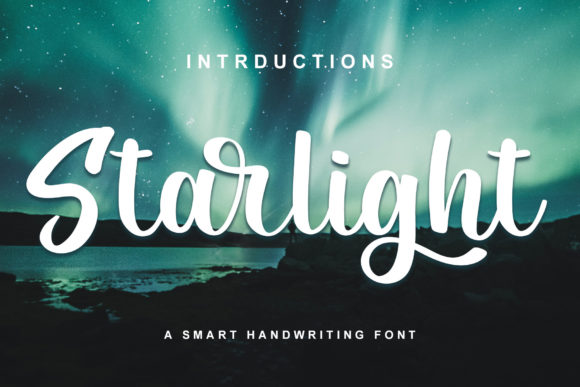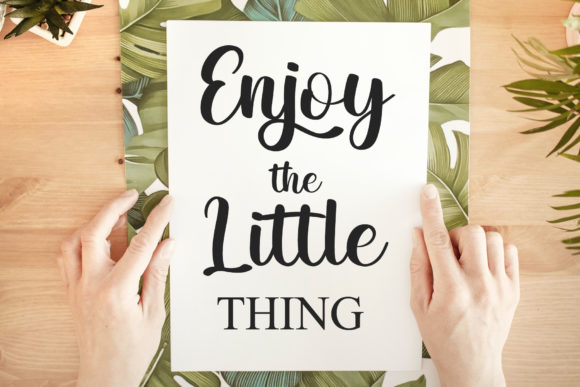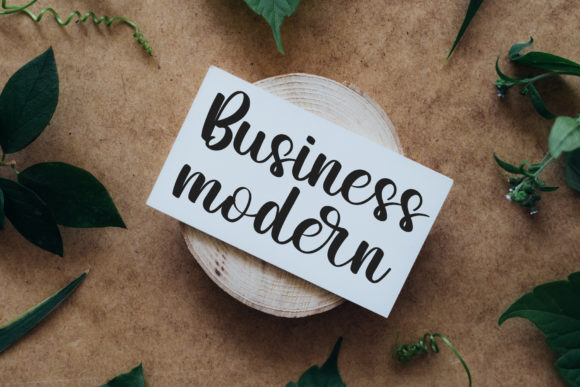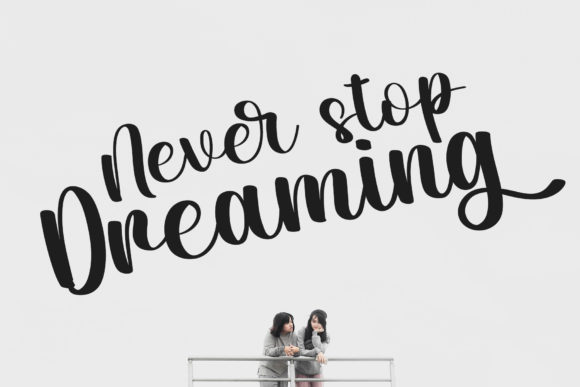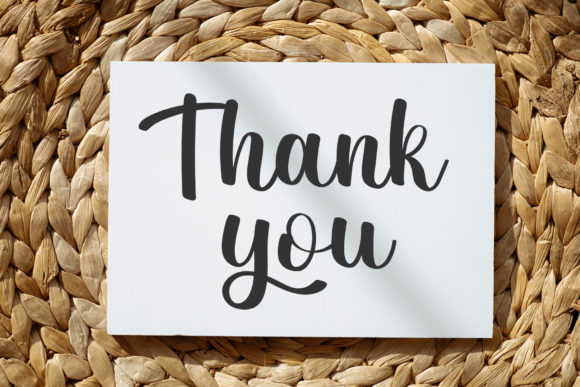
Starlight Font
About Starlight Font
Starlight is a stunning work of art. This beautiful handwritten typeface is great for adding a personal touch to your designs. It is PUA encoded which means you can access all of the glyphs and swashes with ease!